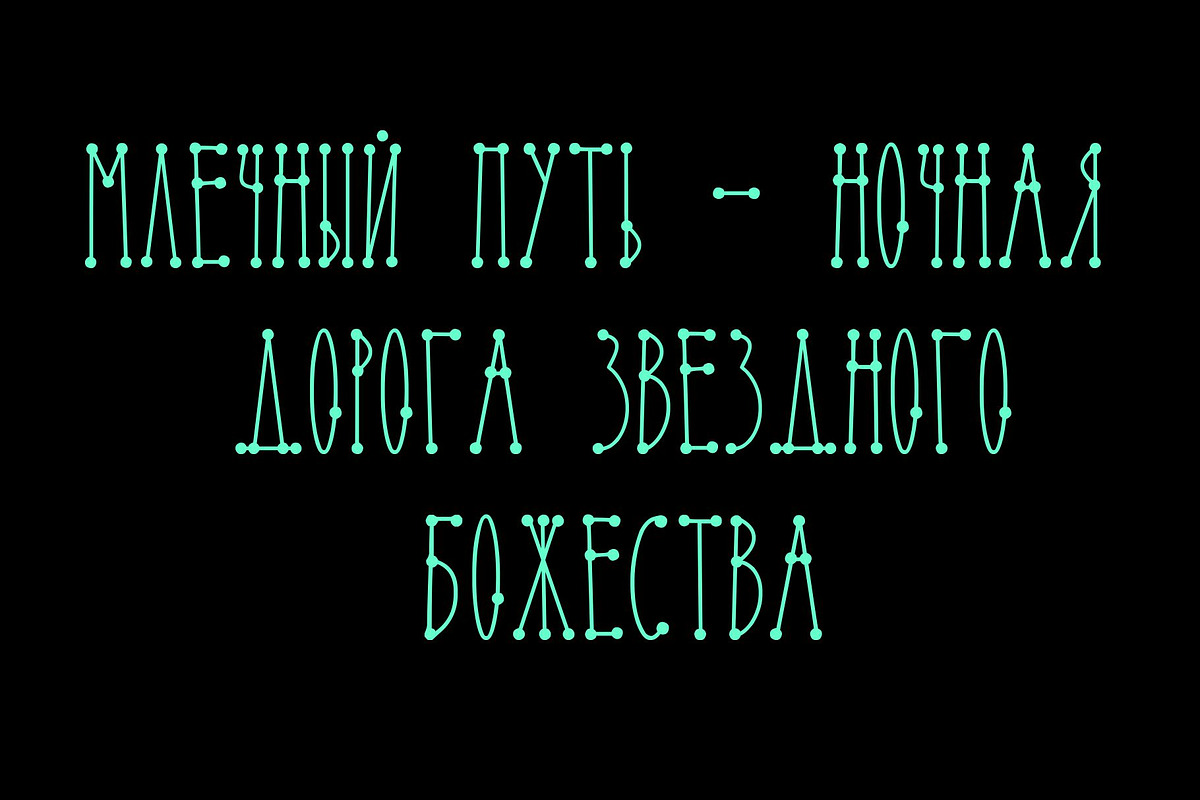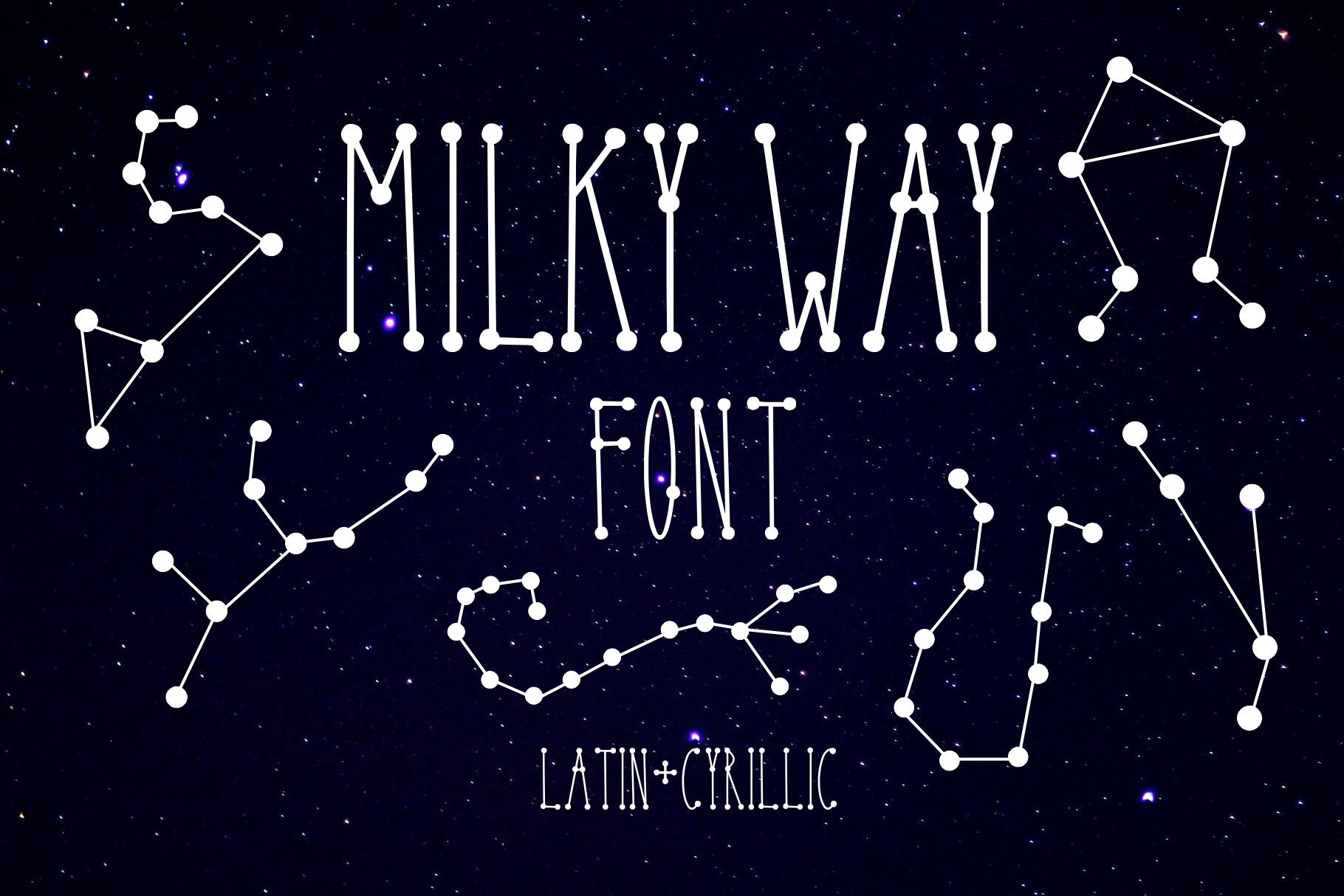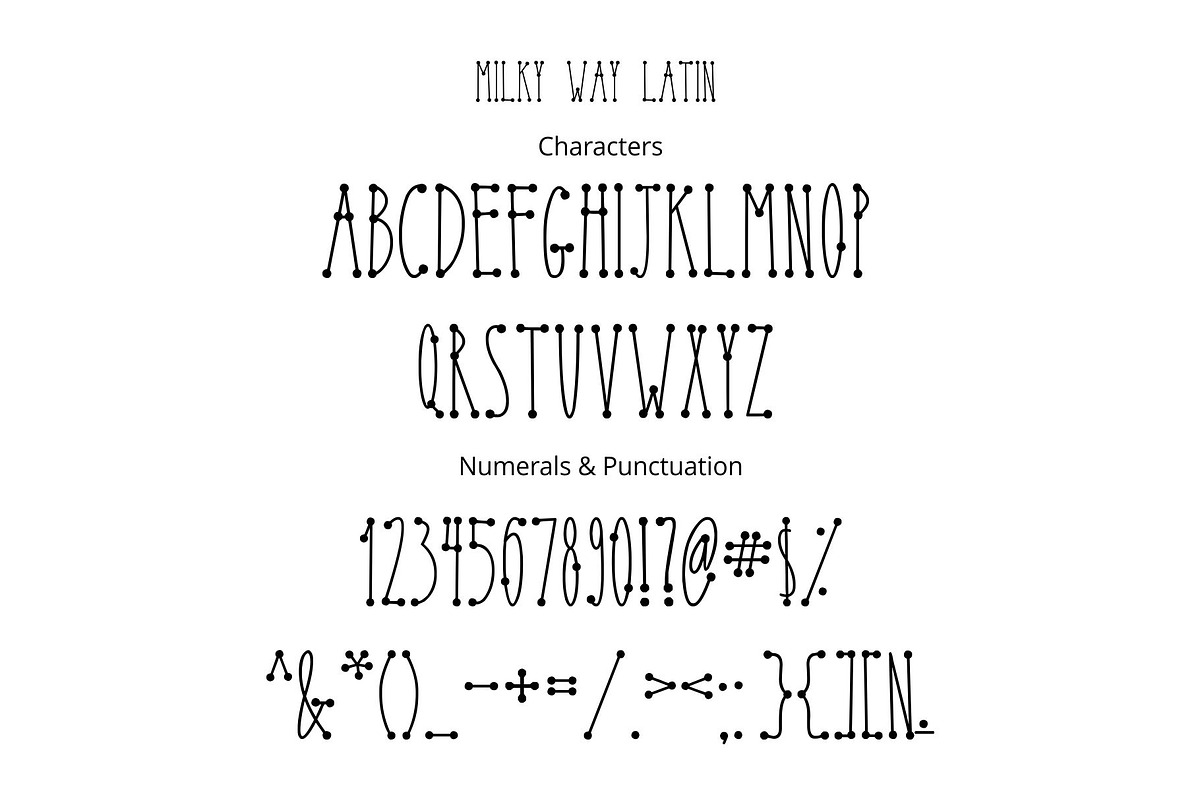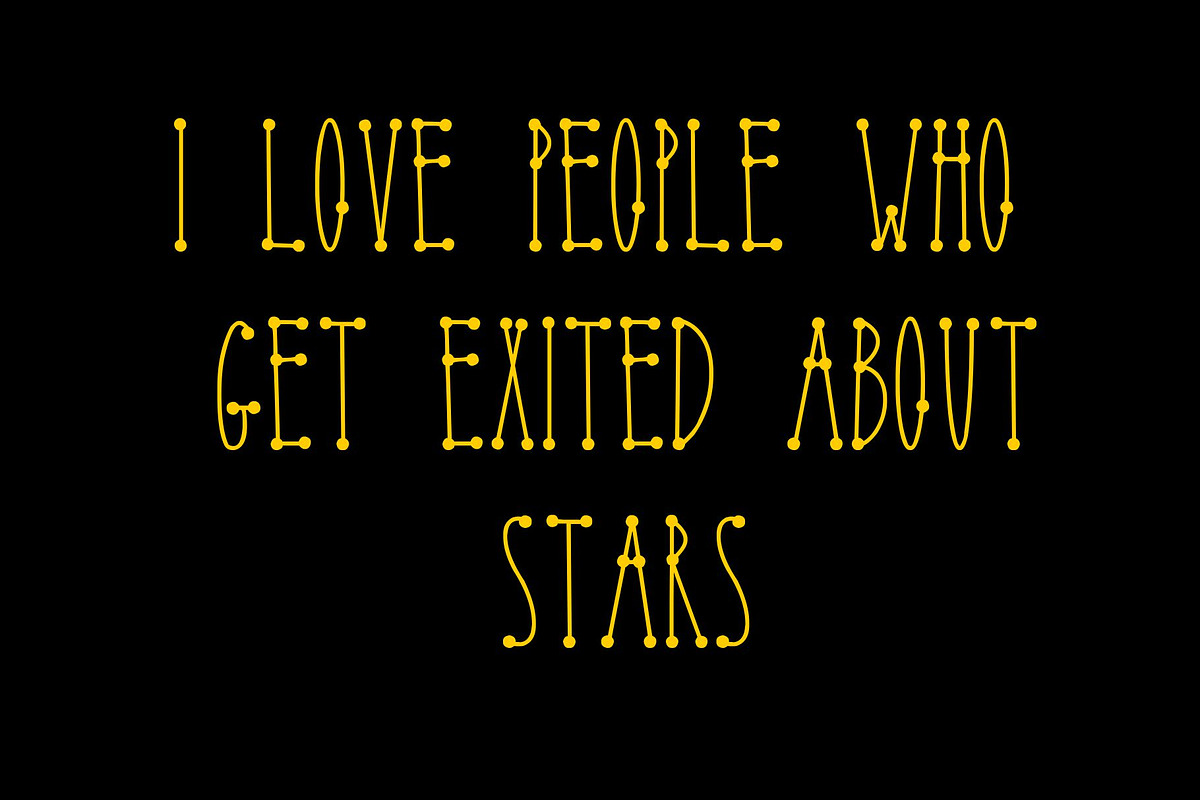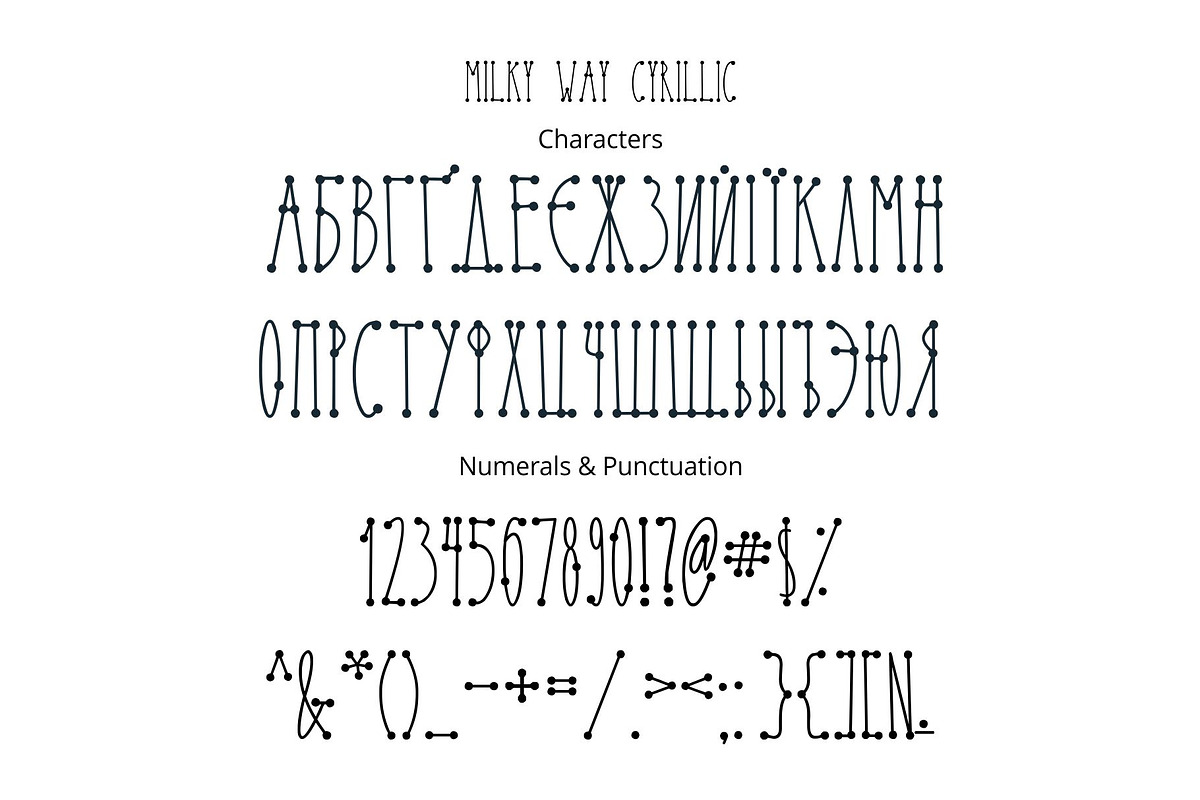
Milky Way Font
I'm glad to present you my new space font – MILKY WAY with latin and cyrillic letters! MILKY WAY font contains latin and cyrillic letter sets, numerals and punctuation. This font work nicely for all sorts of things including t-shirt design, typographic art, social media images and so much more!
Font features: Standard characters A-Z, 0-9, and punctuation for the Latin Basic and Western European set, Cyrillic А-Я set. Enjoy!